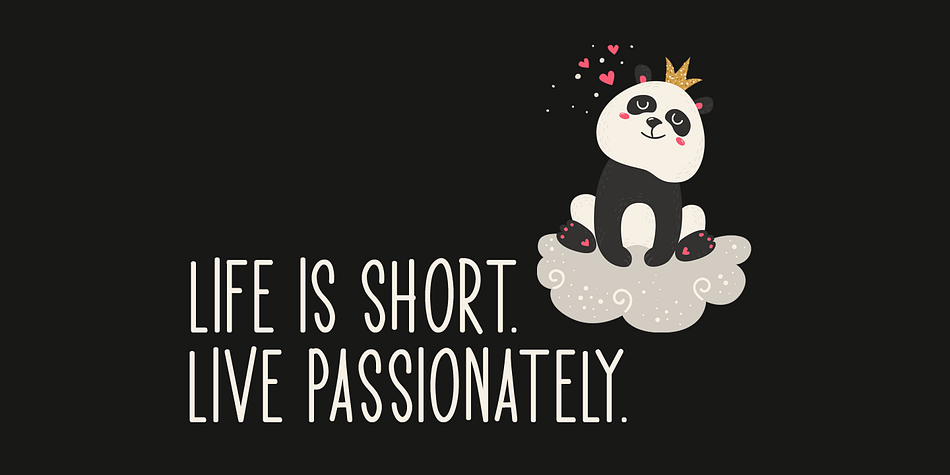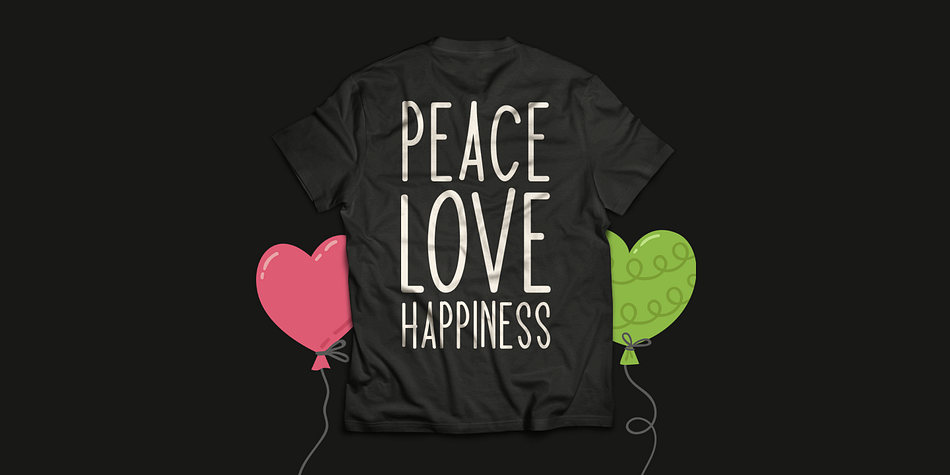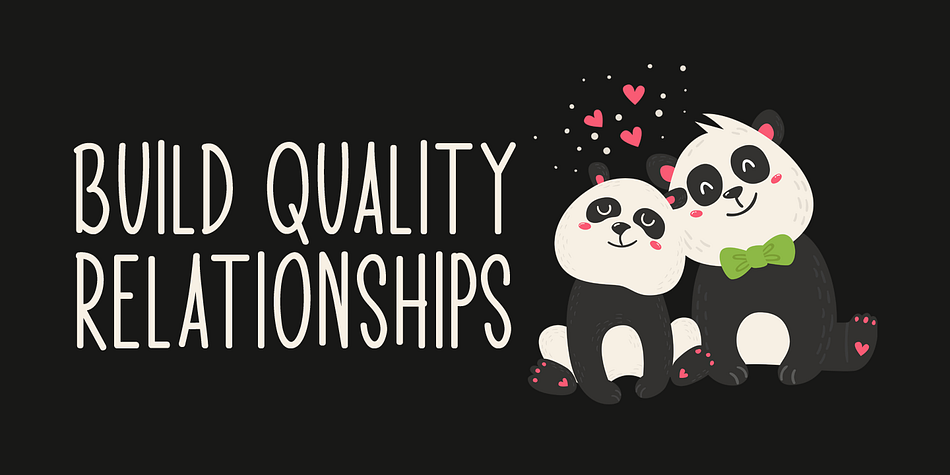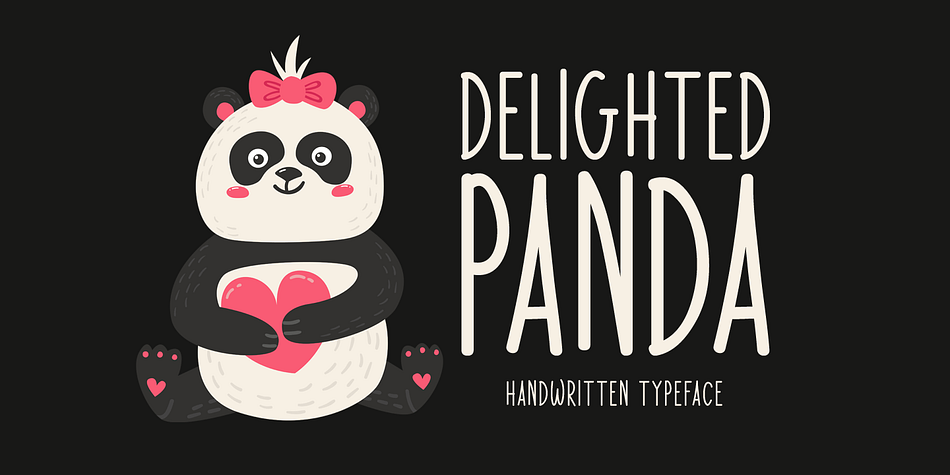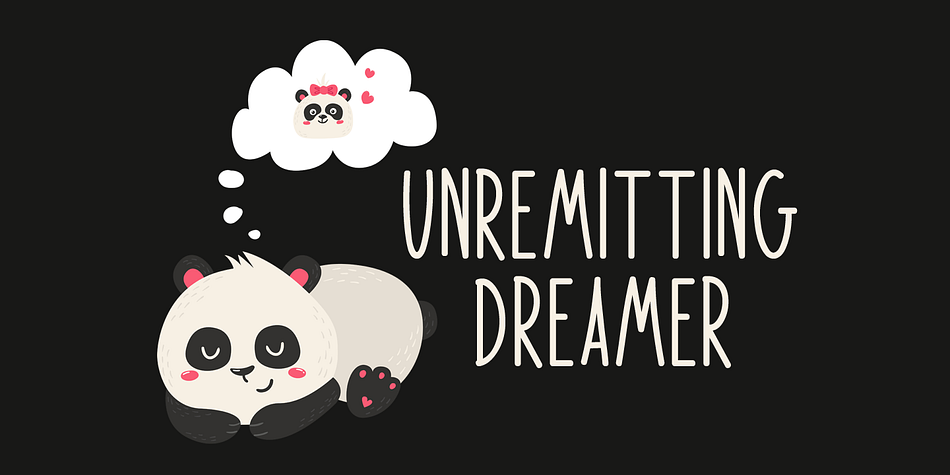
Designed by Md. Shohail Bhuiyan, Delighted Panda is a hand display and hand drawn font published by Seemly Fonts.
Delighted Panda is a sweet and simple handwritten font. Its natural and unique style makes it incredibly fitting to a large pool of designs. The only limit is your imagination!